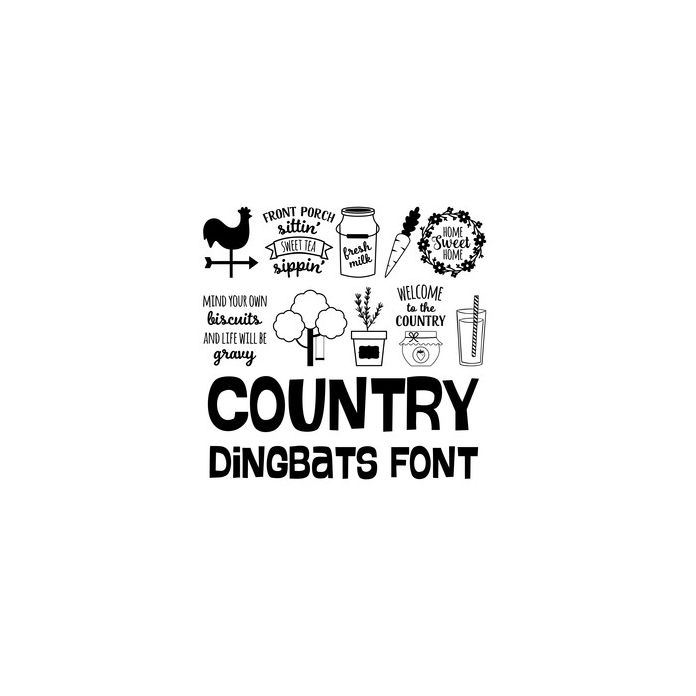
country dingbats font
This cute dingbat font includes 26 country icons and phrases that you can type + cut. Make adorable projects quickly and easily with the characters in this fun font. For ideas and inspiration visit www.loriwhitlock.com and www.facebook.com/lori.whitlock.studio. For Lori's video tutorials visit www.youtube.com/loriwhitlock. For a full tutorials list visit www.loriwhitlock.com/blog/tutorials.